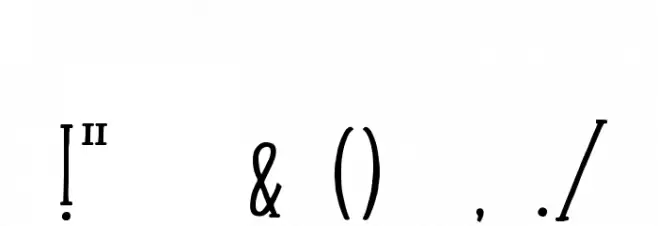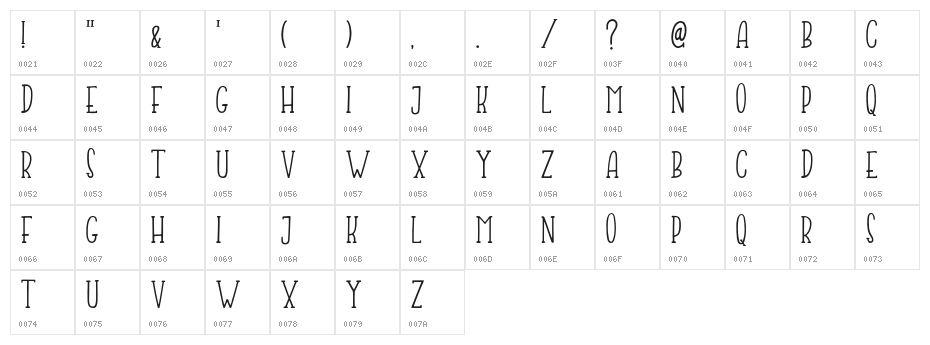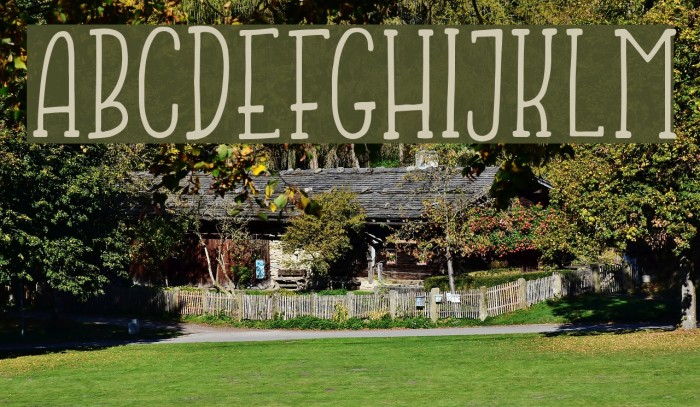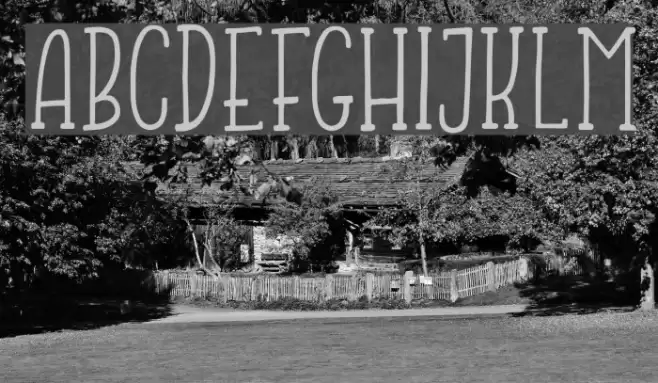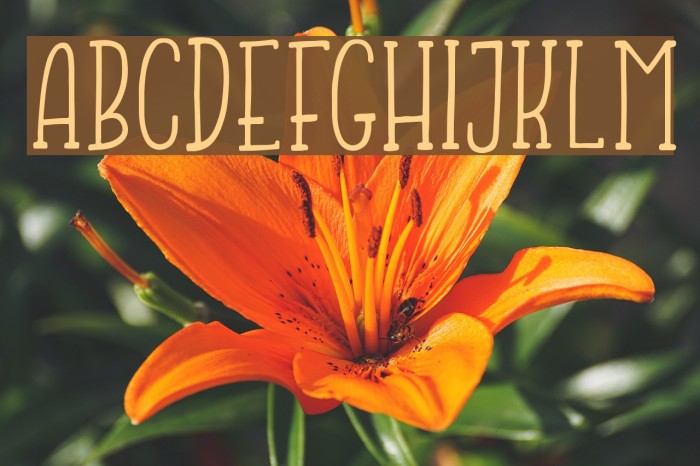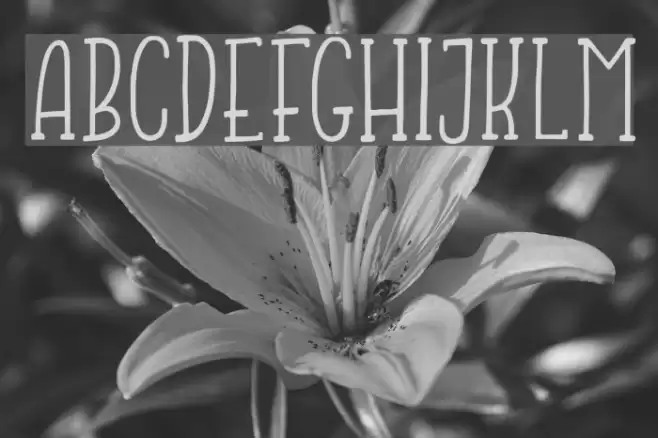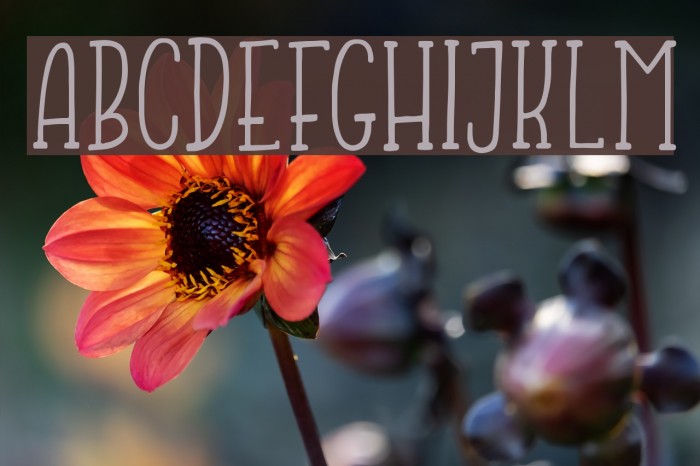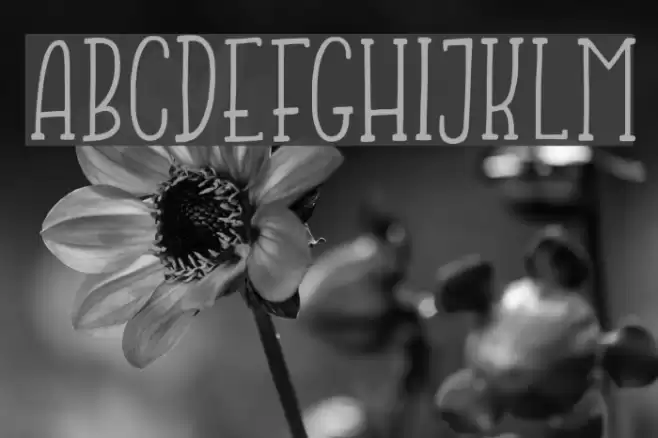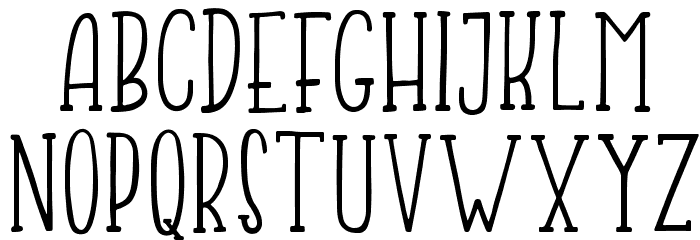
JumpingFrogDemo Font
JumpingFrogDemo Description
This font features a playful and whimsical design with elongated, slightly curved letterforms that give it a lively and energetic appearance. The uppercase letters are tall and narrow, while the lowercase letters maintain a consistent style with a touch of elegance. The strokes are uniform in thickness, providing a clean and modern look. The special characters are creatively designed to match the overall aesthetic, making it suitable for a variety of creative projects. The font's unique style is both eye-catching and versatile, making it ideal for use in branding, posters, and other design projects that require a touch of personality.
| Proposed Projects | Ideal for branding, posters, invitations, and creative design projects. |